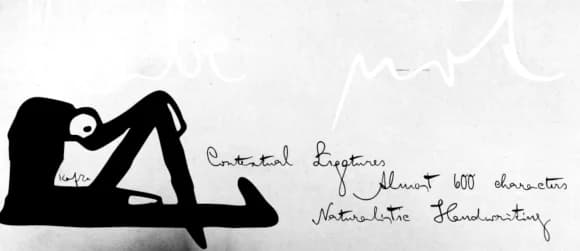
1 / 5About Edvard Font
Edvard Font by juliabausenhardt is an elegant and expressive script that captures the distinctive handwriting of legendary Norwegian painter Edvard Munch. Drawing careful inspiration from his extensive collection of personal letters, sketches, notebooks, and artistic journals, the typeface faithfully reproduces the refined yet characteristically irregular quality that defined Munch's own hand. This creates a script with genuine artistic personality and historical authenticity that stands distinctly apart from more uniform, mechanically-produced handwritten fonts.
The design thoughtfully incorporates extended alternates and ligatures throughout, meticulously crafted to mirror the natural variations and flowing qualities found in authentic handwriting rather than repeating identical letter forms across the alphabet. This careful technical approach ensures each word feels genuinely composed rather than programmatically generated, making it well-suited for wedding invitation suites, fine art book covers, signature-based brand identity projects, and gallery exhibition materials that benefit from artistic credibility and human-drawn warmth.
Beyond the functional letterforms themselves, Edvard includes bonus ornamental elements sourced directly from Munch's most iconic paintings and woodcut prints. These decorative glyphs give designers additional creative possibilities for composing layered, artistically rich compositions with visual depth. Whether you're crafting museum exhibition materials, artist portfolios, or intimate personal stationery, this script brings both profound historical significance and sophisticated visual impact. Discover Edvard Font on Creative Fabrica and add this artistically-rooted script to your collection.
Edvard Font is a script font that shines as a display or heading face. Pair it with a clean sans-serif or serif font for body text β the contrast creates a clear hierarchy while the two styles stay balanced and easy to read.